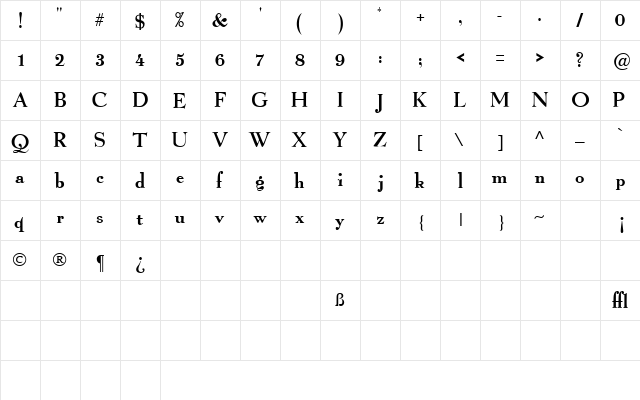
ProximaSSK Regular
Design Context for ProximaSSK Typeface
ProximaSSK takes a measured approach to typography — its balanced proportions and neutral character make it a reliable workhorse for both digital and print work.